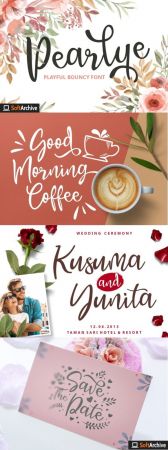
Pearlye is a casual and sweet handwritten font. It is PUA encoded which means you can access all of the glyphs and swashes with ease! It features a varying baseline, smooth lines, gorgeous glyphs and stunning alternates. Fall in love with Pearlye’s versatile style and use it to create wedding invitations, thank you cards, quotes, greeting cards, logos, business cards and much more.